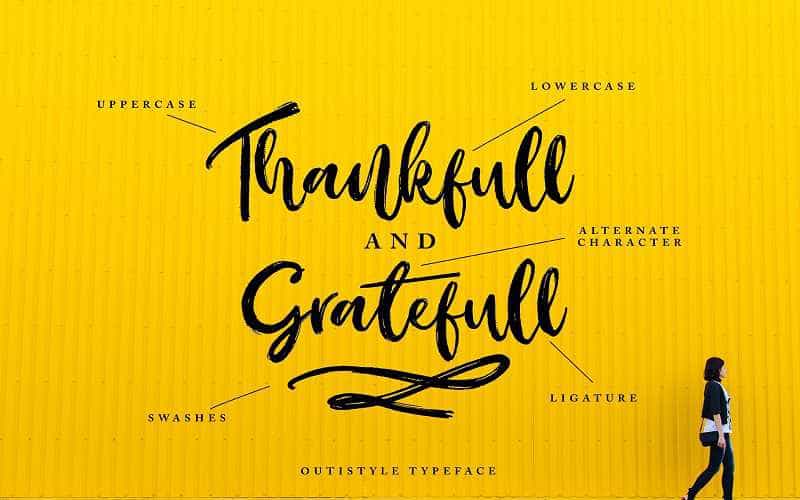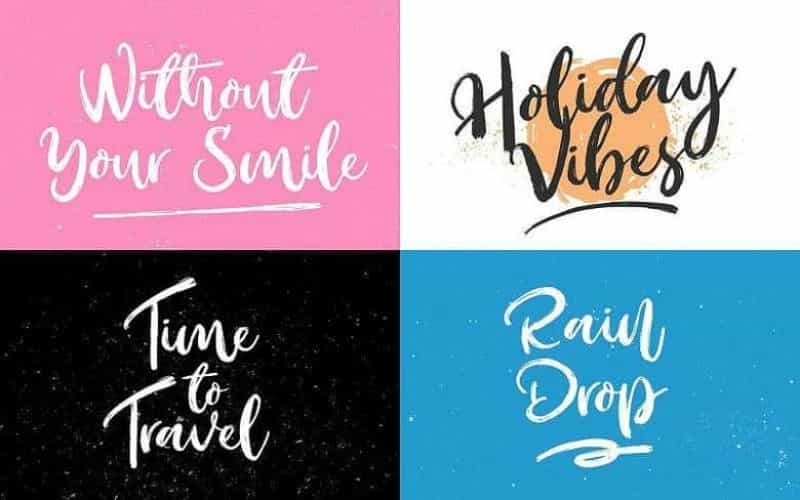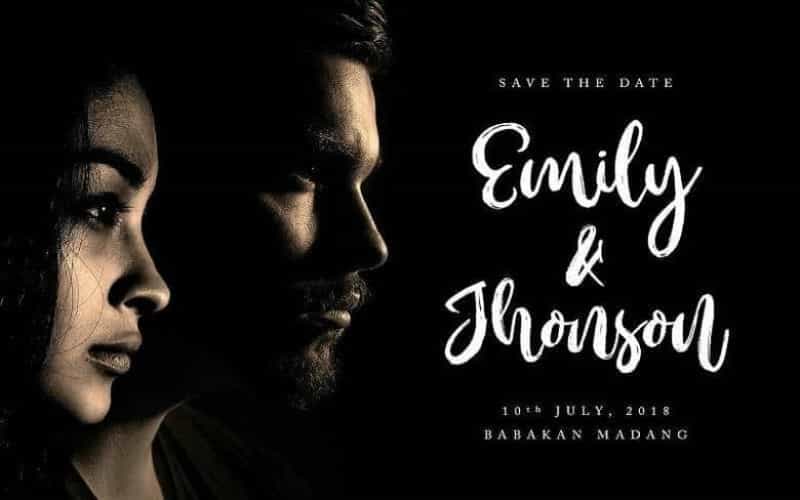
Hey and greetings to all coming to DikasStudio’s Outistyle brush script font for digital typography, based on modern calligraphy trend. Cheerful, spirited and villa design; can be used for typography designs for Christmas cards, brands, logos, packages, products invitations, quotes, labels T-shirt etc.